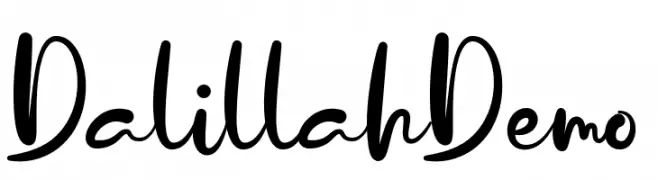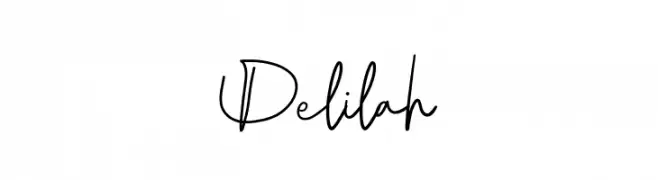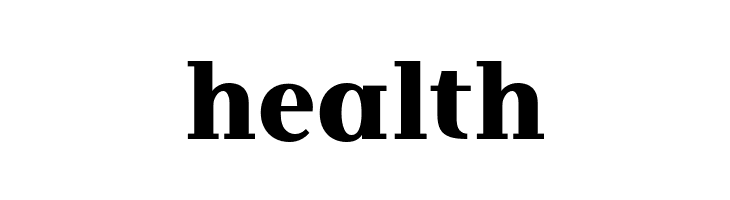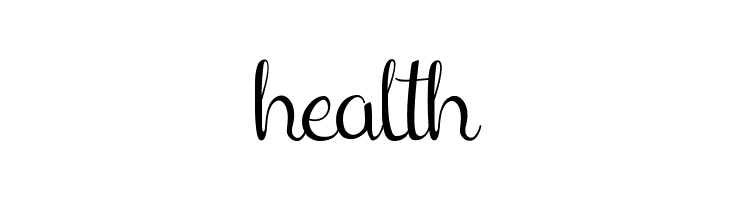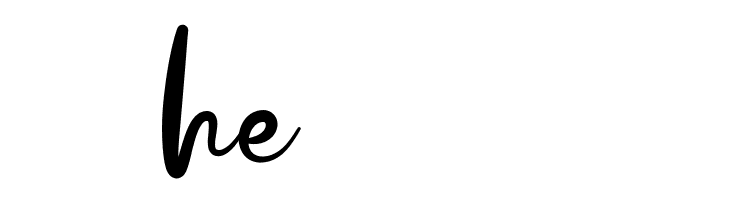
A bold serif font with strong strokes and classic elegance.
A classic serif typeface with elegant strokes and balanced proportions.
A whimsical and elegant script font with decorative loops and swirls.
A modern, playful handwritten font with dynamic strokes.
A flowing, cursive font with elegant, connected letters and dynamic strokes.
A lively and flowing script font with bold, expressive strokes.
A bold, handwritten script font with a lively and informal style.
An elegant script font with flowing, interconnected letters and decorative flourishes.
An elegant, flowing script font with cursive, connected letterforms.
A lively, cursive font with a handwritten touch and elegant flow.